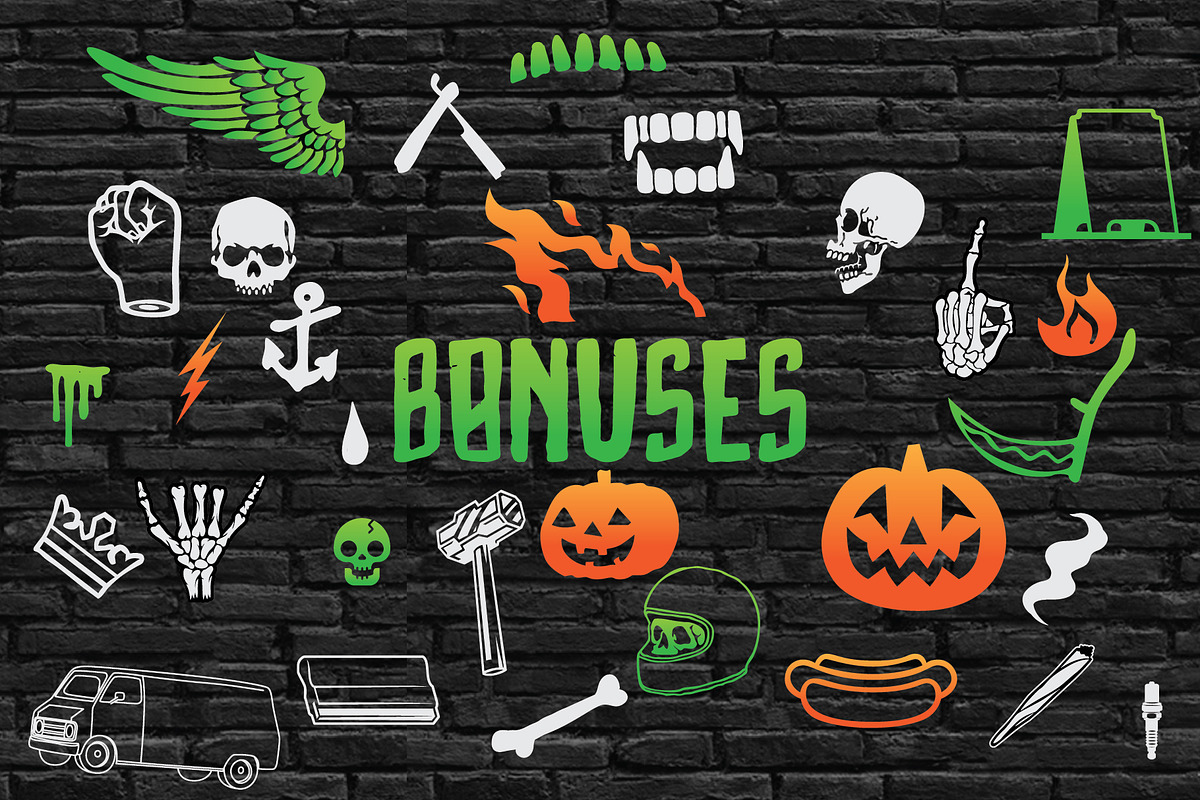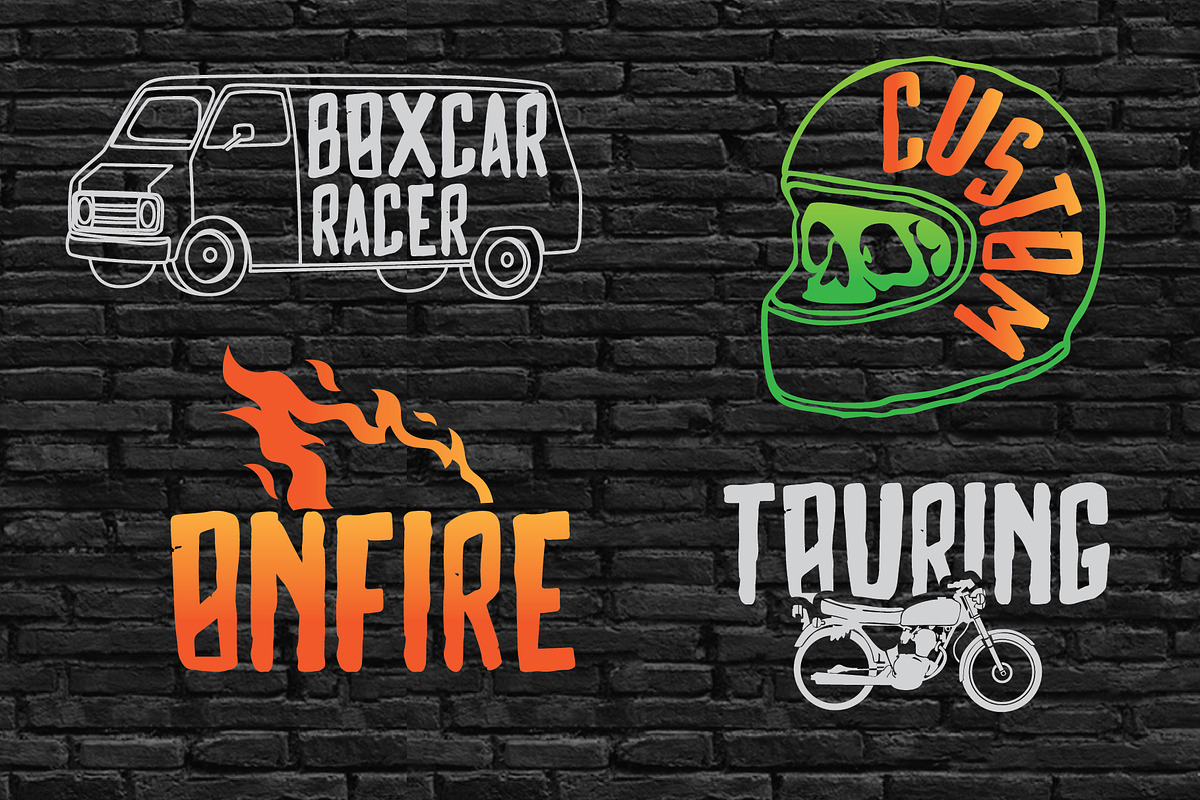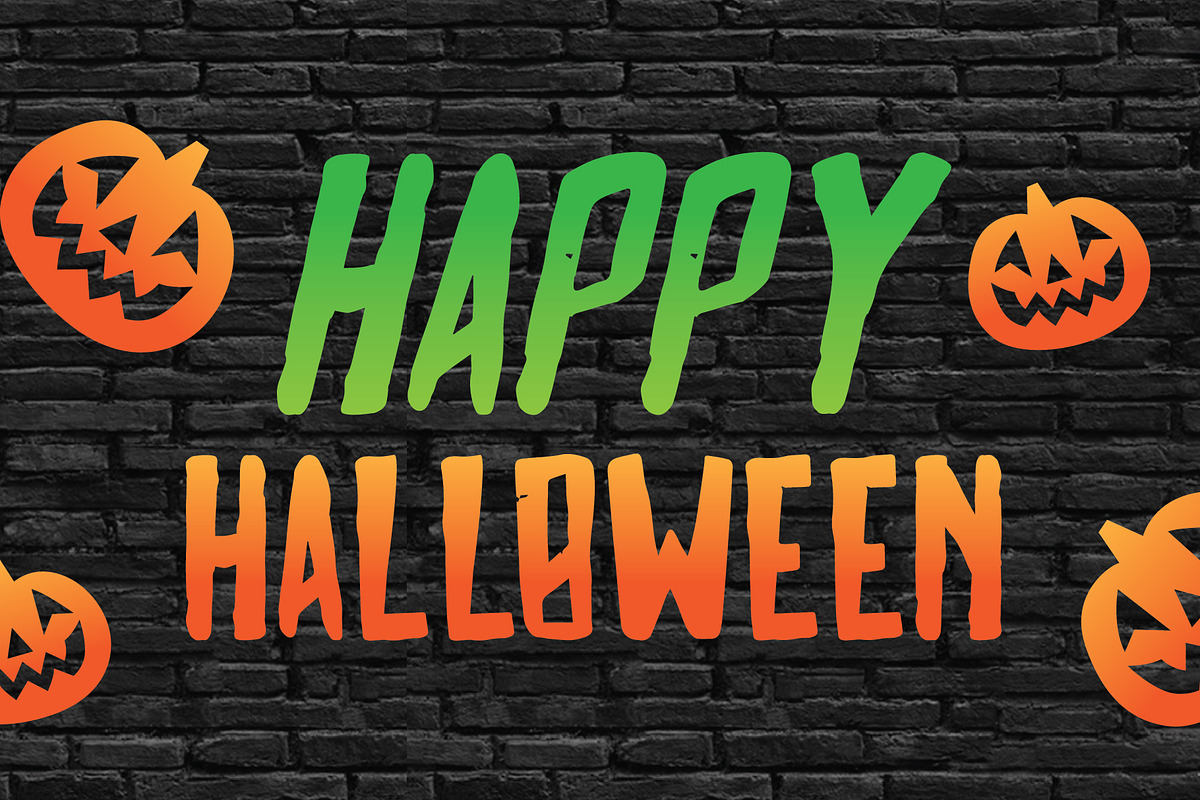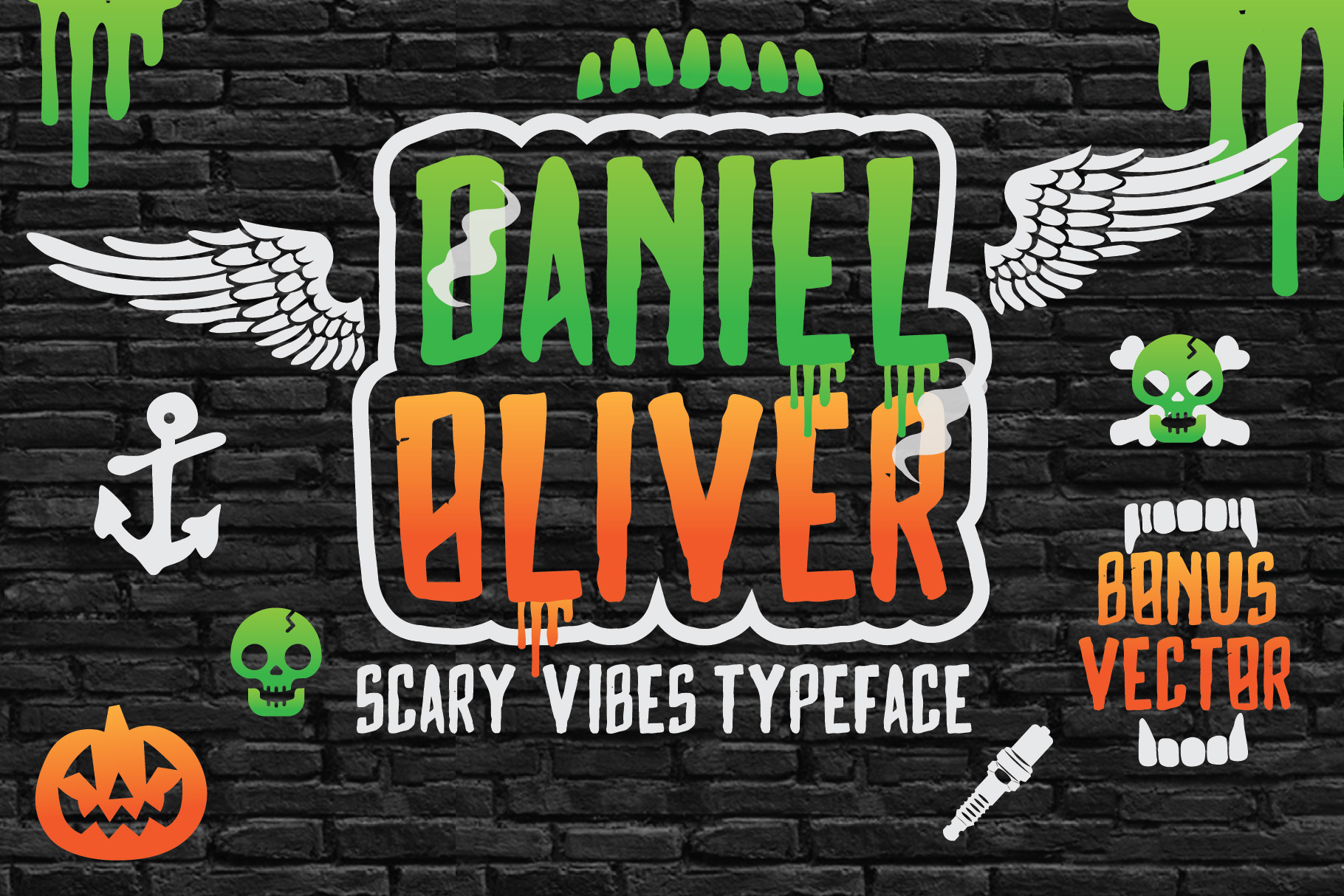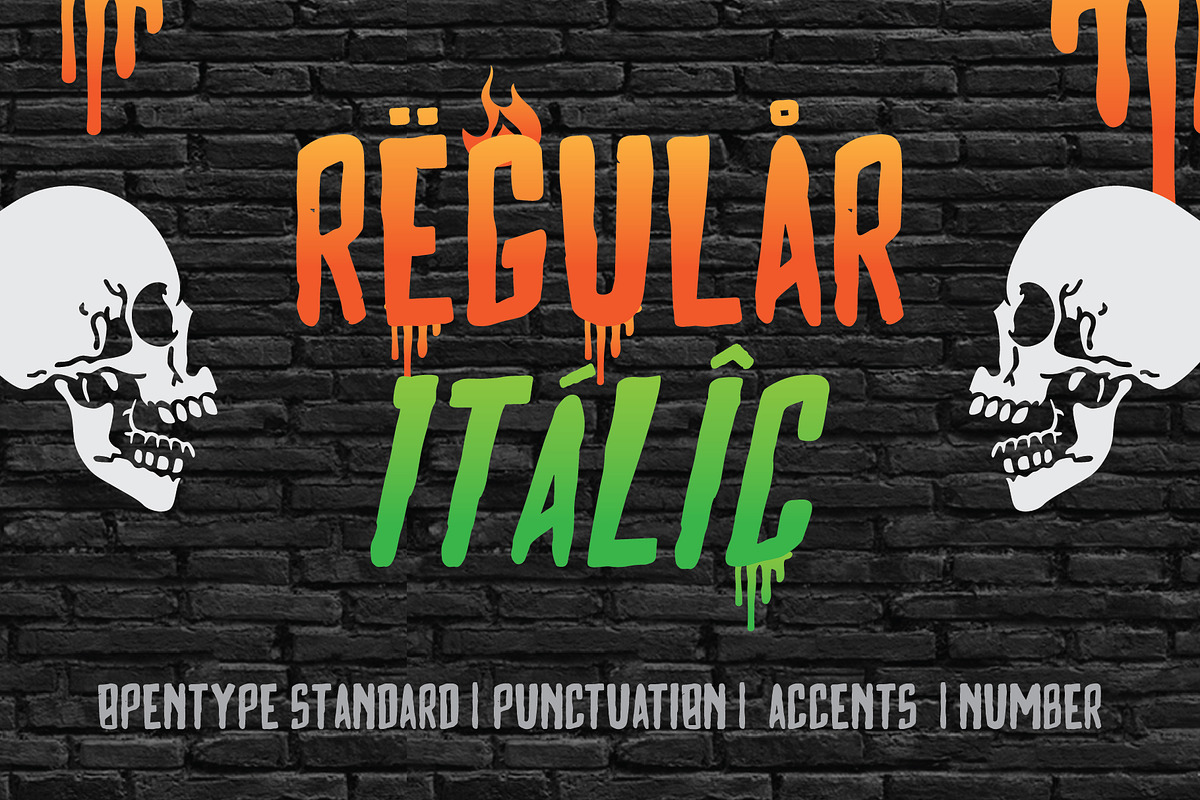
Daniel Oliver Typeface + Bonus
Life is scary, but it’s only when we think about it that way. BUT, when it comes to HALLOWEEN... it doesn’t only live in our mind. We make it real and we celebrate the fears. That’s actually a very cool way to fight the paranoia! Logically speaking, we won’t be so afraid of the thing we created ourselves, will us? The scarier it gets, the ....... it will be (the purposely left blank space is for you to answer).
Now, comes to that realization, we definitely want to be part of the Halloween making process! We contribute by launching our DANIEL OLIVER Typeface (the first time ever in Creative Market!), which consists of 2 fonts: The regular version & Italic version. And to complete the horror, we bring you a bonus of the horor vector you can apply to any of your creepy creations for the “it” day! We hope you got the perfect idea already how to collect the most and loudest scream.